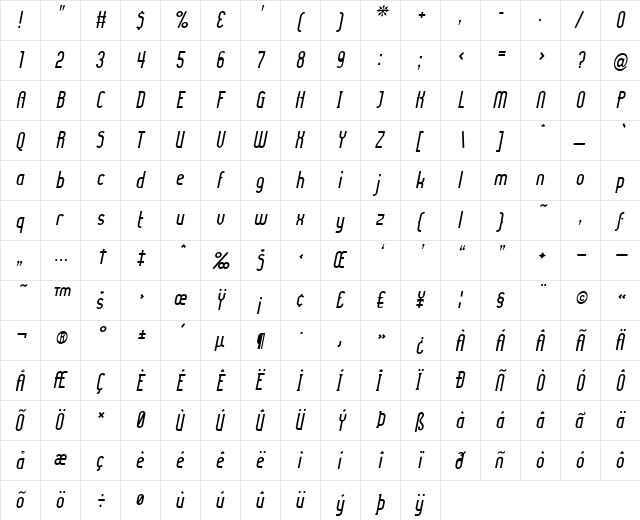
Lady Ice Italic
| Designer | CybaPee & Apostrophe |
Design Context for Lady Ice Typeface
Lady Ice takes a measured approach to typography — its balanced proportions and neutral character make it a reliable workhorse for both digital and print work. The slanted form adds forward momentum and visual energy.